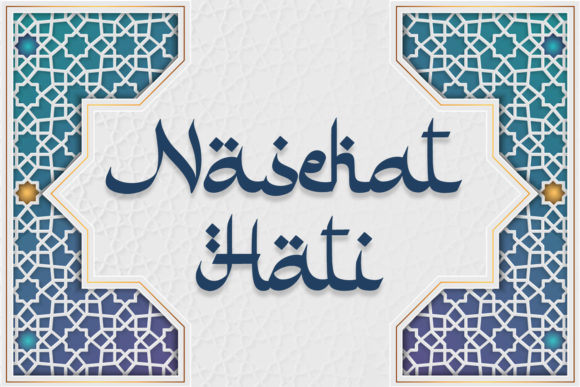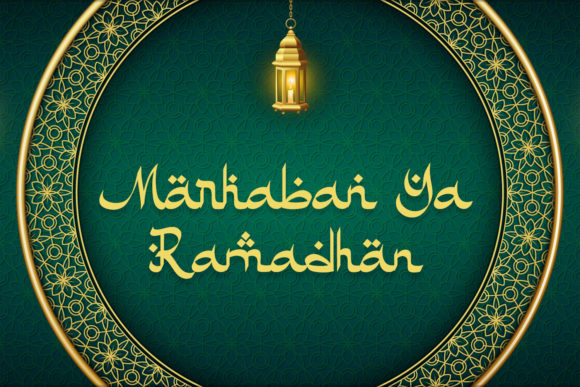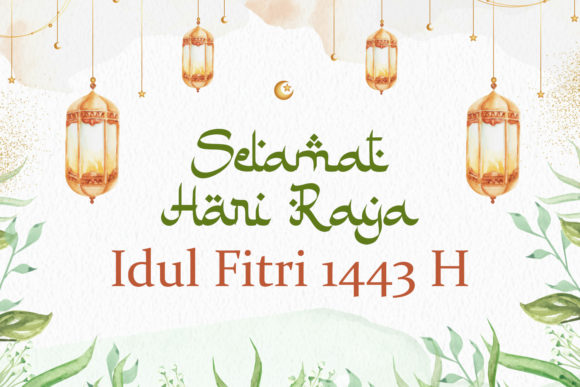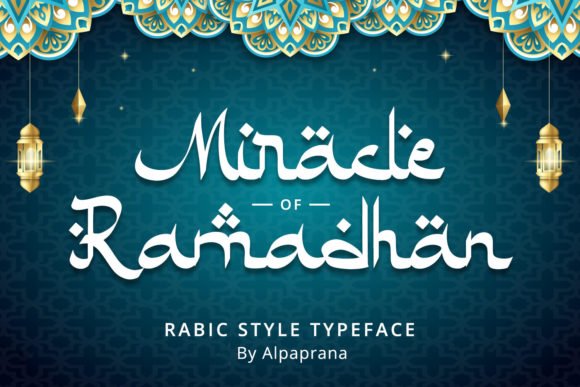
Introduction to Miracle Ramadhan Font
Miracle Ramadhan is a stunning Arabic style font with authentic and casual feels.
Key Features of Miracle Ramadhan Font
Why Choose Miracle Ramadhan Font?